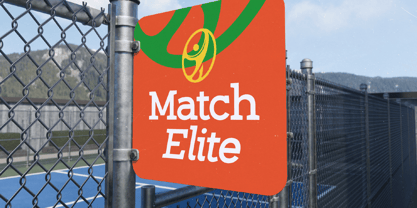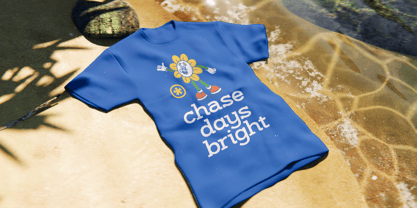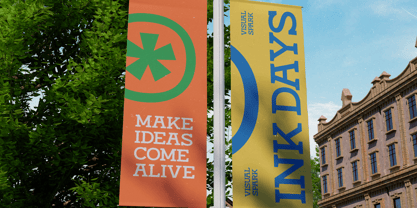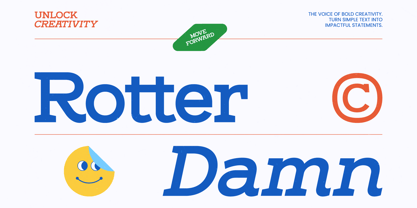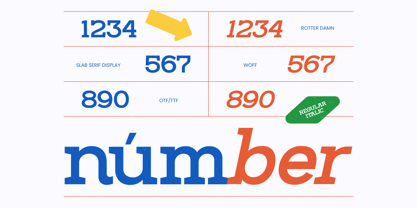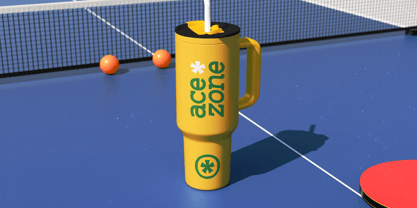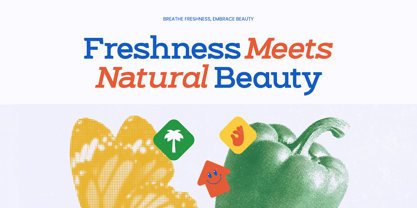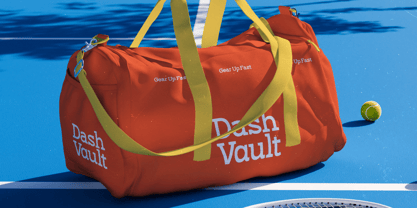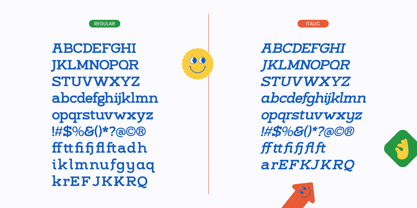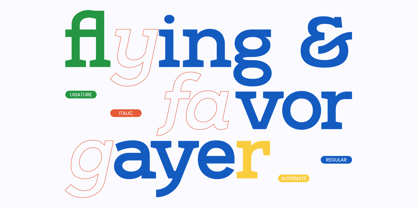
Rotter Damn
Die Schriftfamilie Rotter Damn wurde von Heru Utama Putra entworfen und von Timelesstype Studio veröffentlicht. Rotter Damn enthält 2 Stile und Familienpaketoptionen. Mehr über diese Familie
Rotter Damn – Slab Serif Display, a typeface engineered for maximum visual impact. This slab serif display font blends structural integrity with a modern aesthetic, offering a perfect balance between vintage charm and contemporary precision. Its bold strokes and sharp terminals ensure your message is delivered with unmistakable clarity and sophisticated style.
Precision meets versatility in this exceptional typeface, making it the definitive choice for luxury branding, bold packaging, and high-end editorial design. Rotter Damn – Slab Serif Display is perfect for logo design, large-scale posters, and dynamic advertising campaigns where a strong visual identity is paramount. Its distinct personality allows it to anchor any layout, providing a premium look and feel that resonates with discerning audiences.